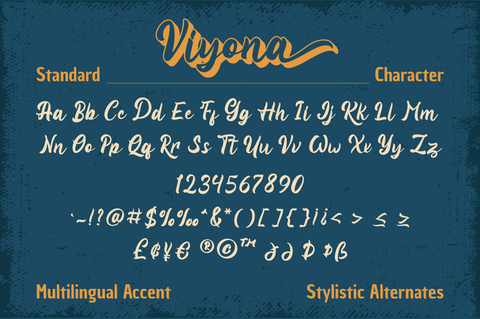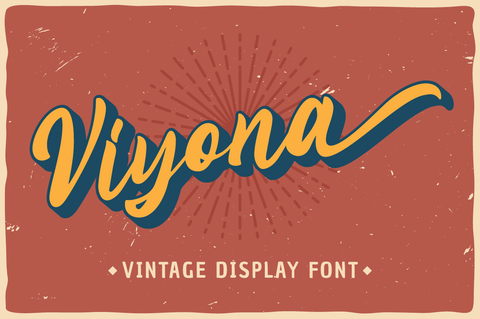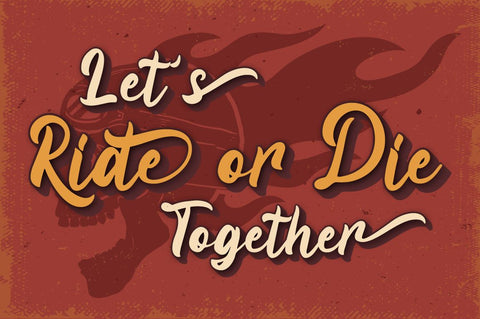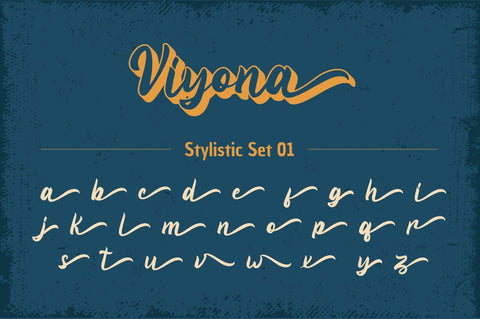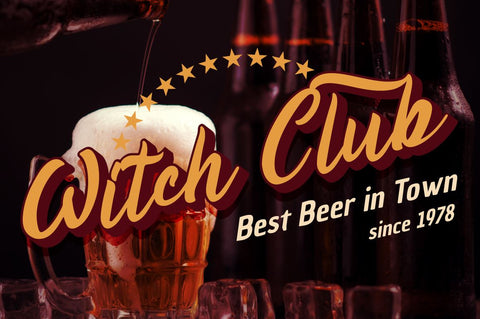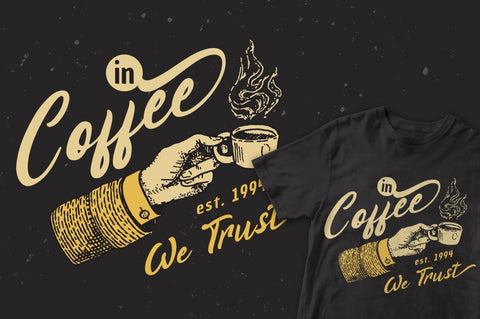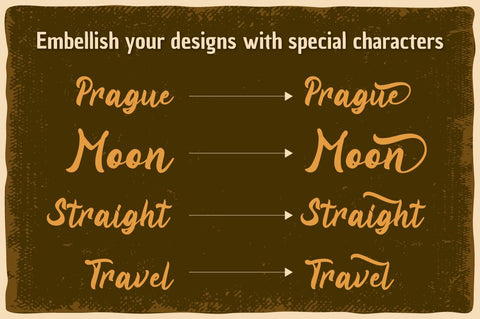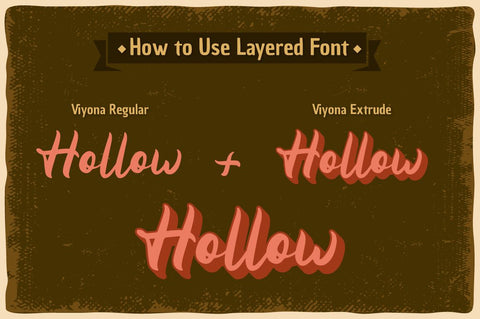
Viyona - Vintage Display Font
Viyona is a Script Vintage font with stylistic set and alternates.
Combine with Viyona - Extrude to get 3D character style!
Fall in love with its incredibly versatile style and use it to create spectacular designs!
Viyona is perfect for branding, logo, invitation, quotes, apparel design, product packaging, merchandise,
game titles, cute style design, Book/Cover Title and more.
- Ending Swash